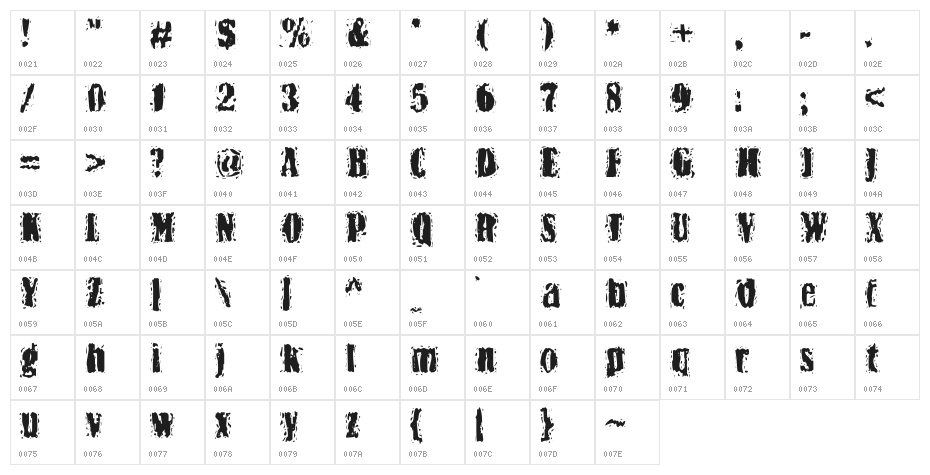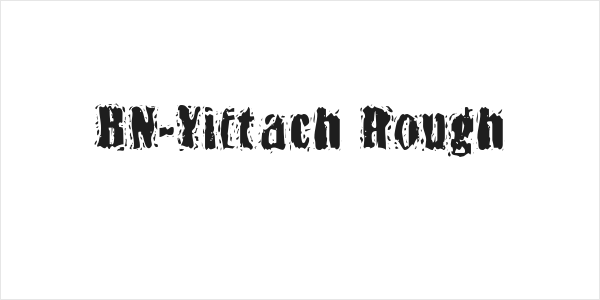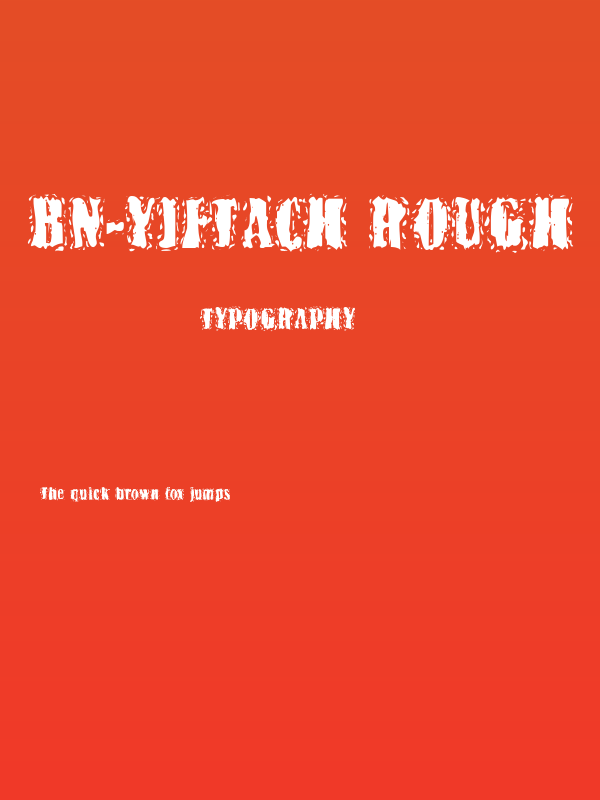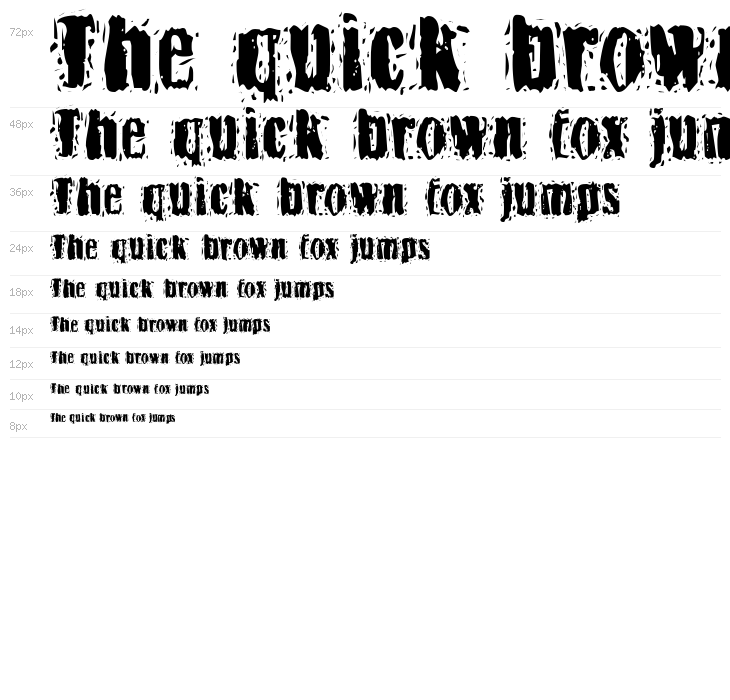
BN-Yiftach Rough Font
BN-Yiftach Rough Description
This font features a rugged and distressed appearance, with each character exhibiting a rough, textured edge that gives it a unique, weathered look. The bold and heavy strokes create a strong visual impact, making it ideal for designs that require a gritty or industrial feel. The uppercase and lowercase letters maintain a consistent style, while the numbers and special characters complement the overall aesthetic. The irregularities in the design add to its charm, making it suitable for projects that aim to convey a sense of rawness or authenticity.
| Proposed Projects | Perfect for album covers, posters, branding for outdoor or adventure products, and any design needing a gritty, industrial vibe. |